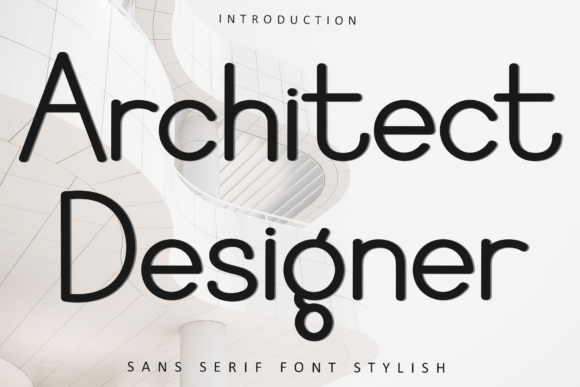
The Quest for the Perfect Font: Discovering Architect Designer
I still remember the frustration of working on a design project, hours spent crafting the perfect layout, only to be stumped by the font choice. My client wanted something unique, something that would make their brand stand out, but I was stuck in a sea of generic fonts. That’s when I stumbled upon Architect Designer, a beautiful and eye-catching font that has since become a staple in my design toolkit.
First Impressions: A Review of Architect Designer
Architect Designer is a game-changer for designers, crafters, and creative hobbyists alike. Here’s what I love about it:
- ✨ Unique and distinctive strokes: The font’s soft, unique touch sets it apart from more traditional fonts.
- ✅ Versatile and meaningful: With various characters, Architect Designer is perfect for a wide range of design projects, from crafts to creative works.
While Architect Designer is an excellent font, there are a few things to keep in mind:
- 🤔 Glyphs and special characters: Some users may find the glyphs and special characters a bit tricky to navigate, especially for those new to OpenType features.
- ⚠️ Limited availability of stylistic alternates: While the font has some great stylistic alternates, it may not have as many options as some users would like.
The Story Behind Architect Designer
Architect Designer was created with the goal of crafting a unique, eye-catching font that would inspire designers and creatives. The font’s designer wanted to create a font that was both beautiful and functional, with a soft, touch that would add a personal touch to any design project.
| What is Architect Designer? | Architect Designer is a beautiful and eye-catching font designed with a soft, unique touch. |